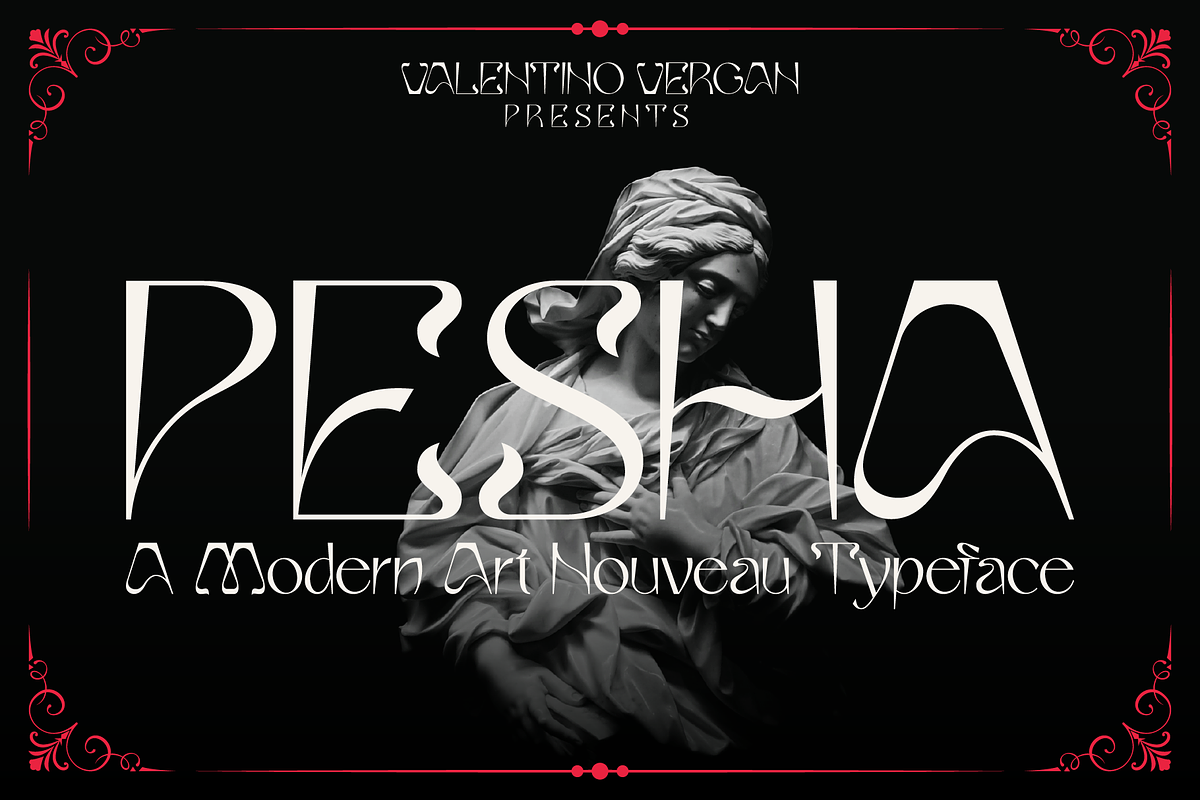
Pesha - Art Nouveau Typeface Free Download
Please note, to use this font for commercial purposes, you must purchase the full version. Pesha is an elegant Art Nouveau typeface that blends intricate, decorative elements with timeless sophistication. Perfect for creating vintage logos, invitations, branding, and editorial designs, this font adds a touch of old-world charm and artistic flair to your work. Whether you're designing for a luxury brand, a creative event, or a retro-inspired project, Pesha brings an artistic and graceful feel to your designs. Test it out and enjoy free download access for personal use. Experience the vintage elegance of Pesha - Art Nouveau Typeface Free Download before purchasing the commercial license. Add a decorative, timeless style to your designs with Pesha.